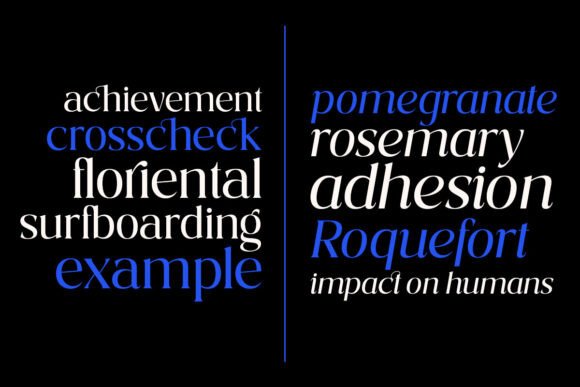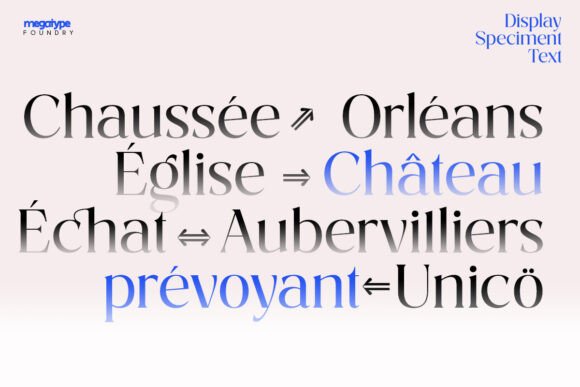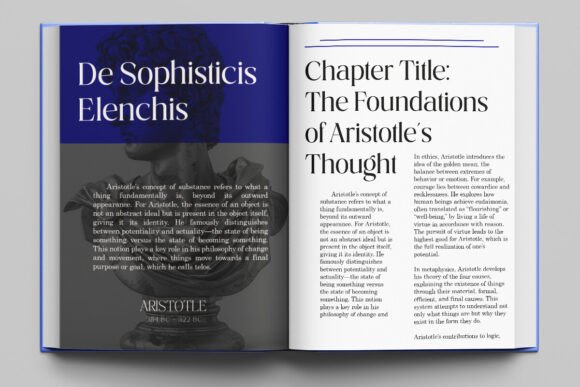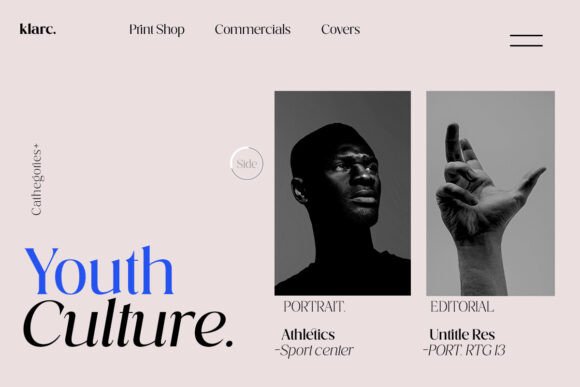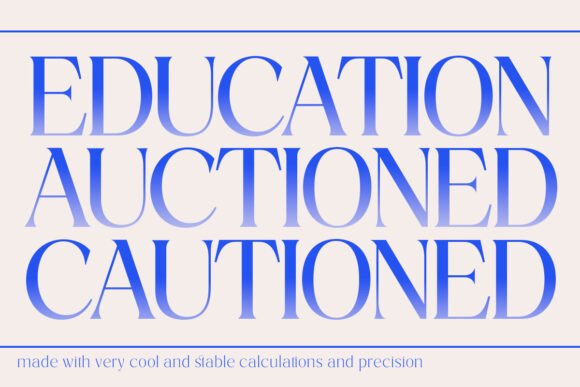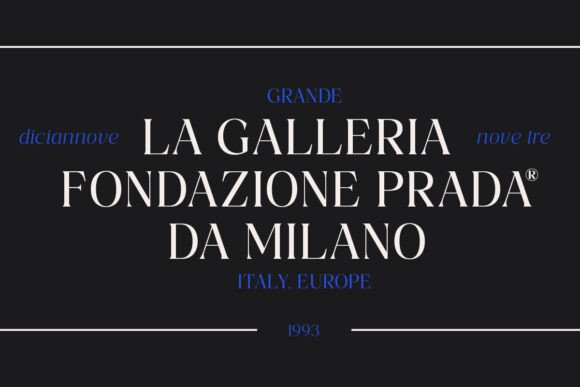
Introducing Costaline Medium: Elevate Your Designs with Elegance and Sophistication
In the realm of typography, a font can make or break the visual appeal of a design project. For designers and crafters seeking a typeface that exudes both classic charm and modern sophistication, Costaline Medium emerges as an exceptional choice. This comprehensive guide delves into the features, applications, and benefits of incorporating Costaline Medium into your design repertoire.
Unveiling Costaline Medium: A Harmonious Serif Typeface
Costaline Medium is a thoughtfully crafted, contemporary serif typeface that strikes a perfect balance between classic feel and modern aesthetics. Its design is characterized by harmonious lines, elegant curves, and a refined structure, making it an excellent addition to any design project that requires a touch of sophistication and elegance.
Key Features of Costaline Medium
- Classic yet Contemporary: Costaline Medium boasts a classic serif design with a modern twist, making it versatile for a wide range of design applications.
- Variety of Styles: The typeface includes vertical and italic styles, offering designers the flexibility to explore and refine their designs with ease.
- Visual Nuances: The font reveals many visual nuances and hidden secrets, allowing for the creation of beautiful, detailed designs.
Applications of Costaline Medium
Costaline Medium’s versatility makes it an ideal choice for various design projects, including:
- Editorial Design: Enhance your publications with a sophisticated and readable typeface.
- Headlines: Grab attention with the font’s elegant and impactful letterforms.
- Branding Projects: Establish a strong brand identity with a typeface that communicates luxury and professionalism.
- Logo Design: Create memorable logos that stand out with the unique characteristics of Costaline Medium.
- Packaging: Elevate your packaging designs with a font that exudes quality and elegance.
- Magazine Titles: Make a lasting impression with captivating and stylish magazine titles.
- Advertisements: Use Costaline Medium to create compelling ads that capture and retain audience attention.
- Short or Long Texts: The font’s readability makes it suitable for both short and long texts, ensuring your message is conveyed effectively.
- Web Design: Enhance your website’s typography with a modern serif typeface that offers a premium user experience.
Benefits of Using Costaline Medium
Incorporating Costaline Medium into your design projects offers several advantages:
- Enhanced Aesthetic Appeal: The font’s elegant design elevates the visual appeal of your projects.
- Improved Readability: Costaline Medium’s clear and refined structure ensures excellent readability across various mediums.
- Versatility: The availability of vertical and italic styles provides designers with the flexibility to experiment with different design approaches.
- Time Efficiency: With its comprehensive set of features, Costaline Medium saves designers time in selecting and pairing fonts for their projects.
Costaline Medium stands out as a superior typeface for designers and crafters aiming to infuse their projects with a blend of classic elegance and modern sophistication. Its versatility, readability, and aesthetic appeal make it an excellent choice for a wide array of design applications. By incorporating Costaline Medium into your typography arsenal, you’re equipped to create visually stunning and impactful designs that resonate with your audience.
Whether you’re working on editorial designs, branding projects, or web design, Costaline Medium is poised to elevate your creative output. Explore the possibilities with Costaline Medium and discover how this harmonious serif typeface can transform your designs.